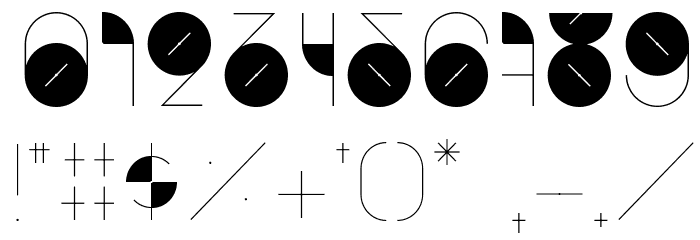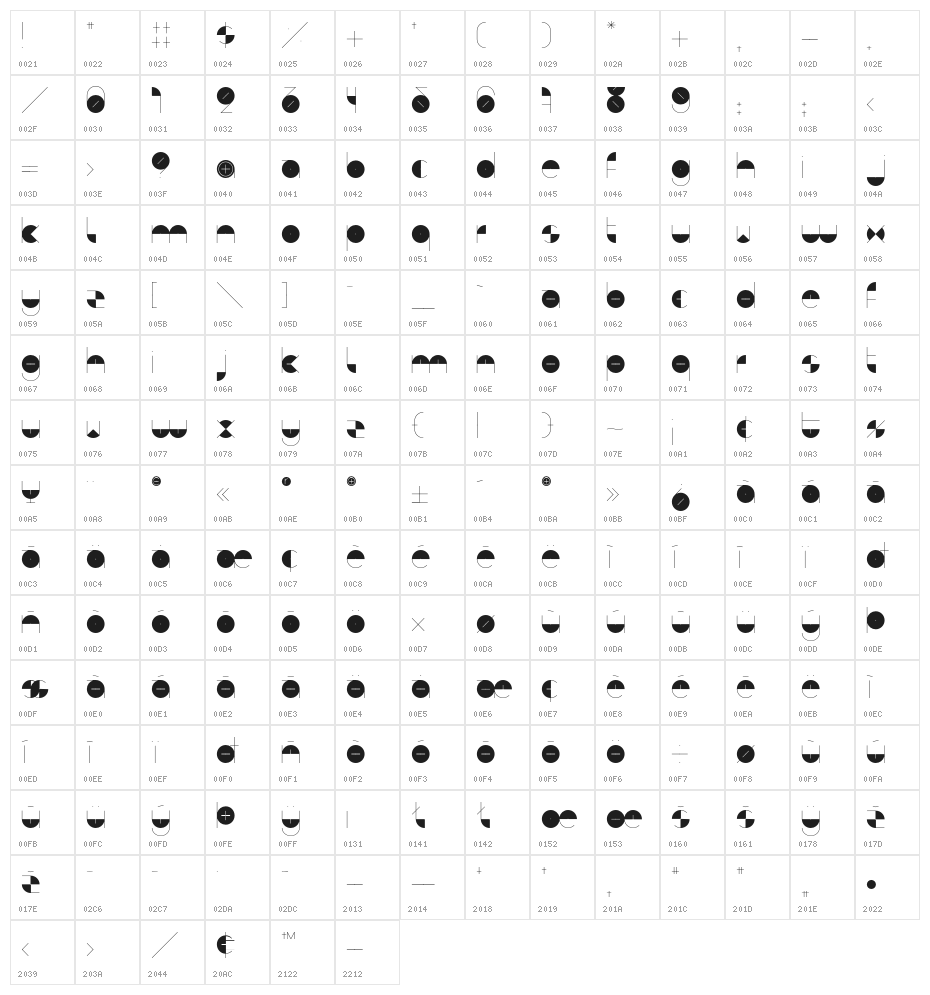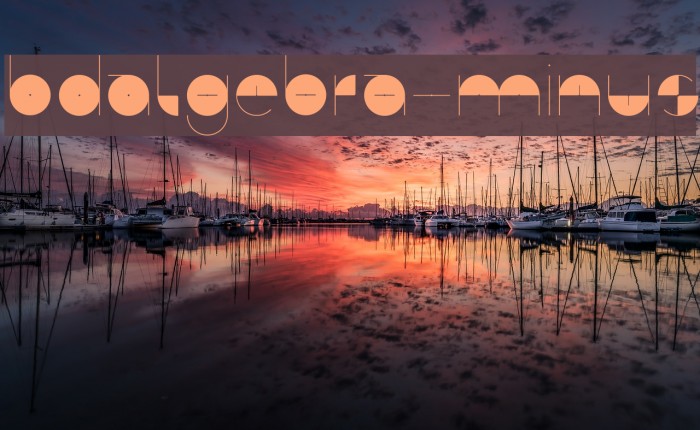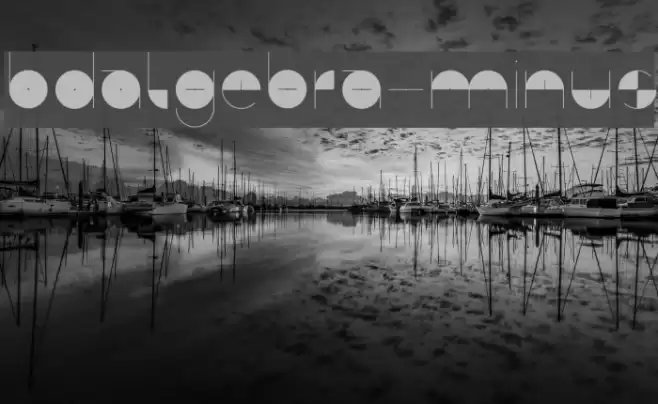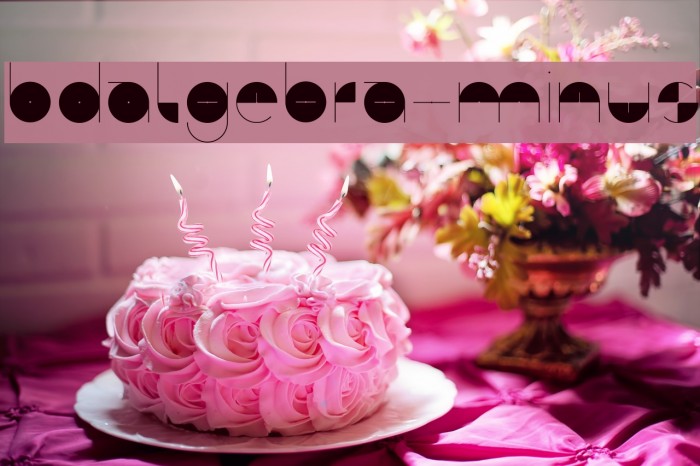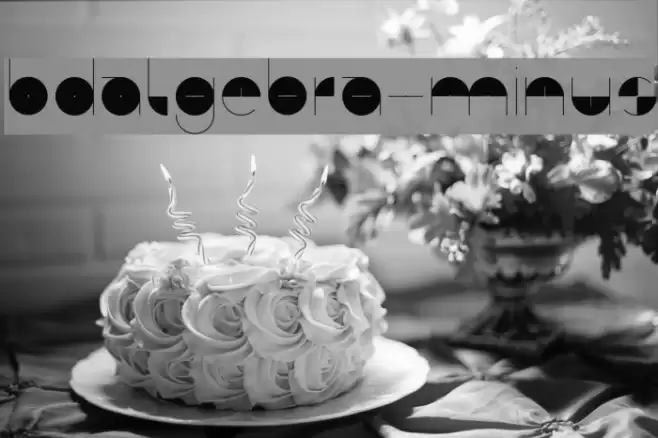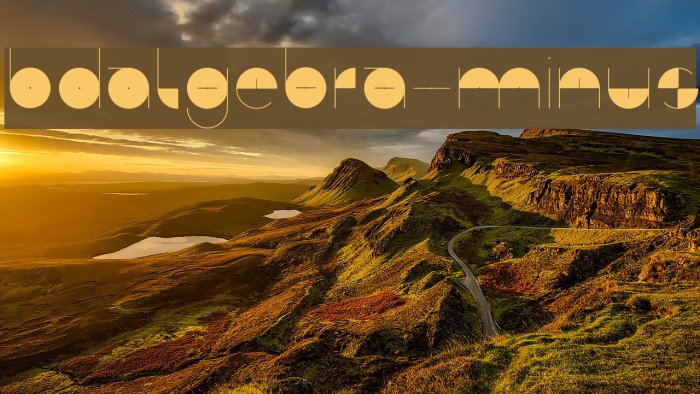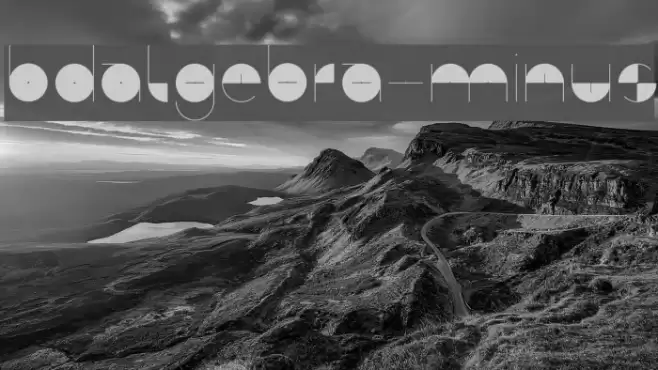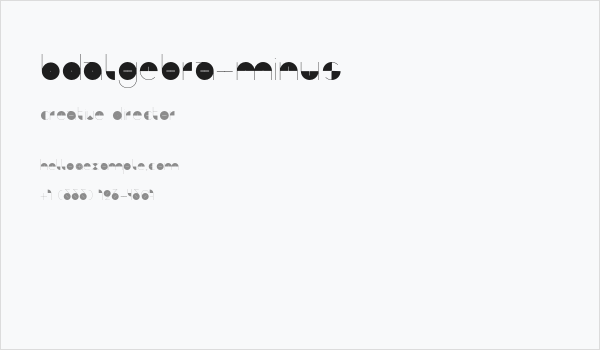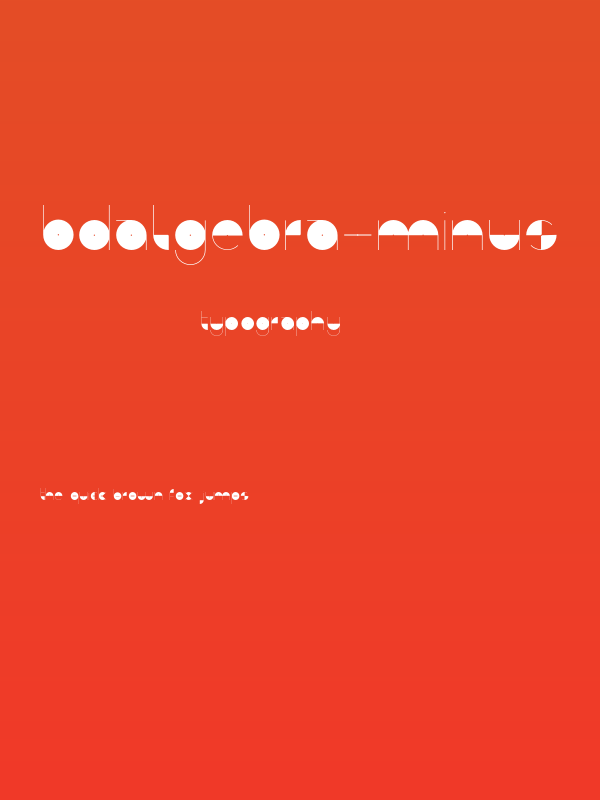
BDAlgebra-Minus Font
BDAlgebra-Minus Description
This font features a unique, geometric design with a modern and futuristic appeal. The characters are constructed using a combination of circular and linear elements, creating a striking visual contrast. The uppercase and lowercase letters share a consistent style, with clean lines and a minimalist aesthetic. The numbers and special characters maintain this geometric theme, offering a cohesive look across all glyphs. The font's distinct style makes it ideal for projects that require a bold and contemporary appearance.
| Use Case | Logos, Posters, Digital media |
| Proposed Projects | Ideal for branding, logos, posters, and digital media that require a modern and bold aesthetic. |